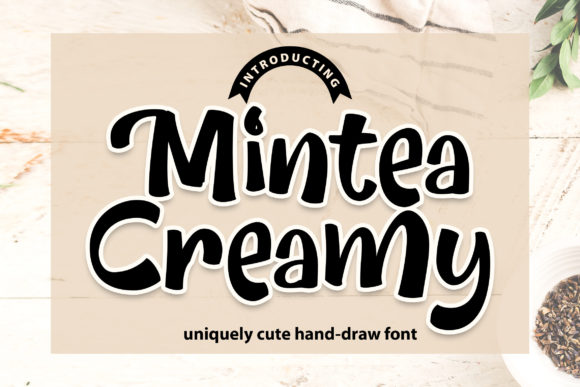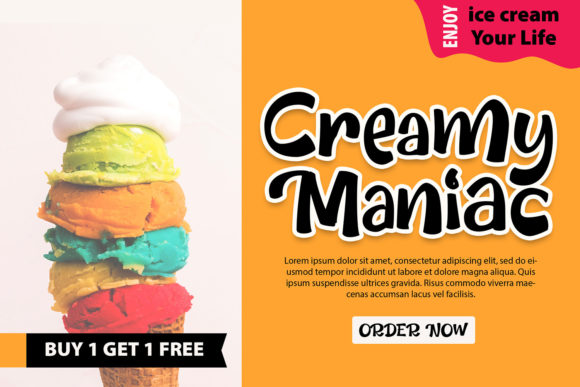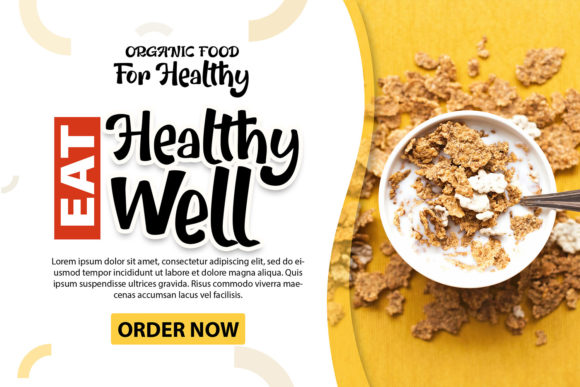
About Mintea Creamy Font
Mintea Creamy is a quirky and fun handwritten font. This font is PUA encoded which means you can access all of the beautiful glyphs and swashes with ease!